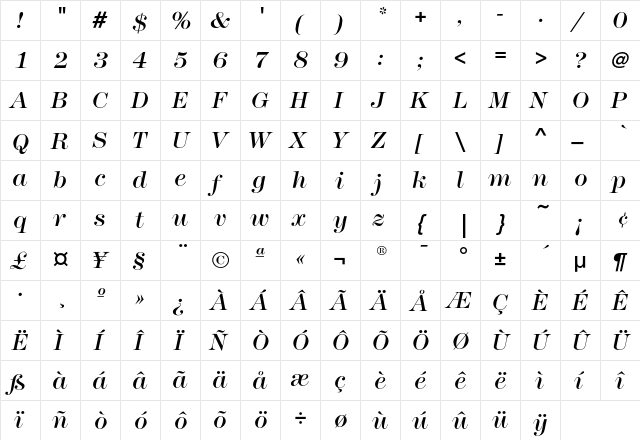
ModernNo216EF MediumItalic
Design Context for ModernNo216EF Typeface
ModernNo216EF is a composed and adaptable typeface that performs quietly and consistently across a wide range of design contexts. The dynamic lean of this cut emphasises speed and emphasis in any layout.
Pro Tip: Try ModernNo216EF for annotation and caption copy alongside an upright companion — the contrast in angle creates a dynamic but ordered typographic system.